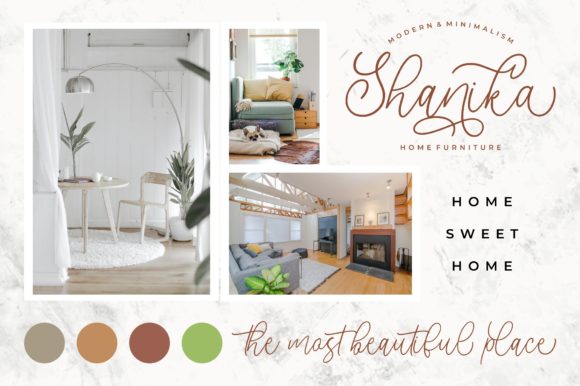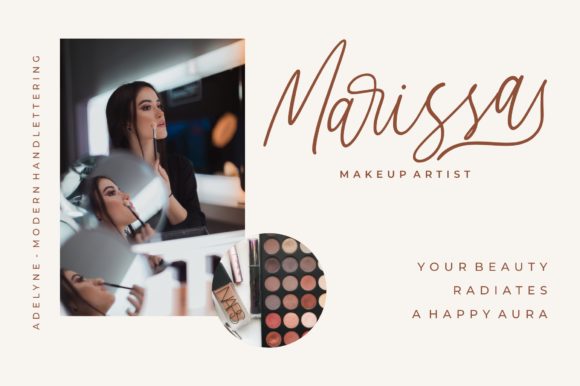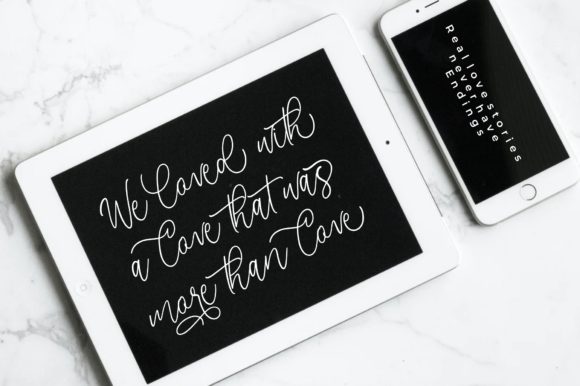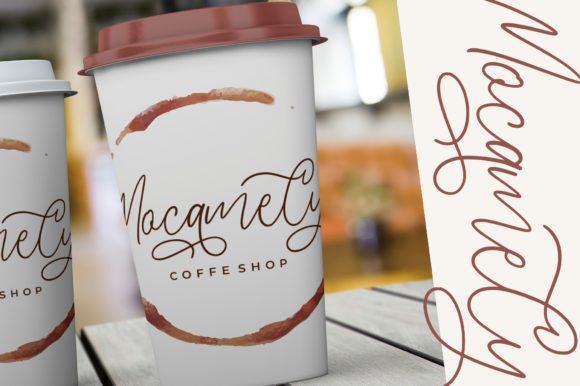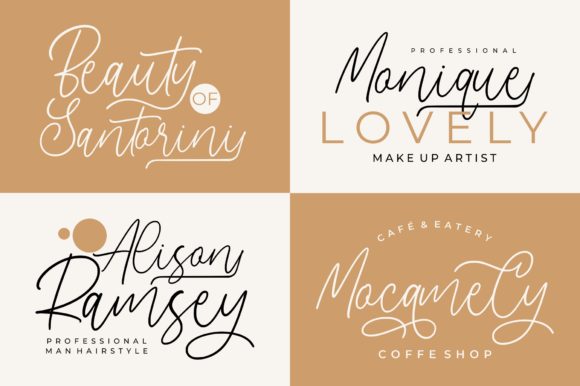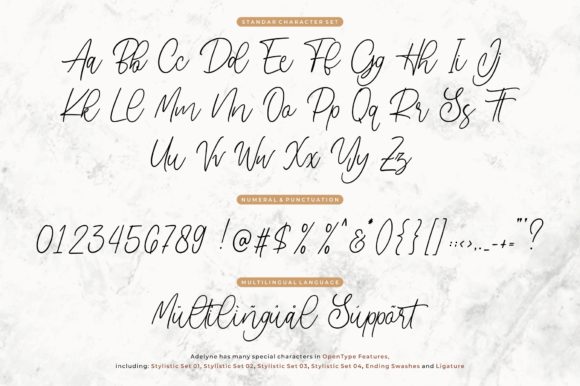
The Elegance of Adelyne Font: A Designer’s New Best Friend
I still remember the design project that led me to discover Adelyne Font. I was working on a branding project for a luxury wedding planner, and I needed a font that exuded elegance and sophistication. After hours of scouring font libraries and trying out different options, I stumbled upon Adelyne Font. Its beautiful, handwritten curves and classy calligraphic influences instantly caught my attention. I knew I had found the perfect fit.
An Honest Review of Adelyne Font
• ✨ Elegant and sophisticated design that’s perfect for luxury brands
• ✅ Highly versatile and adaptable to various design projects
• 💫 Beautiful calligraphic influences that add a touch of class
• 🎨 Extensive OpenType features, glyphs, and stylistic alternates for creative freedom
• 🤔 Some users may find the font a bit too ornate for certain design projects
• ⚠️ Limited use of uppercase letters in certain contexts, due to font design
The Designer Inspiration Behind Adelyne Font
Adelyne Font was designed with the goal of creating a beautiful, elegant script font that would evoke the feeling of luxury and sophistication. The designer drew inspiration from classic calligraphy and handwriting, while also incorporating modern elements to make the font feel fresh and contemporary.
What is Adelyne Font best suited for? Adelyne Font is ideal for luxury brands, wedding designs, and high-end marketing materials.
Is Adelyne Font easy to read? Yes, Adelyne Font is designed to be highly legible, making it perfect for body text and headlines.